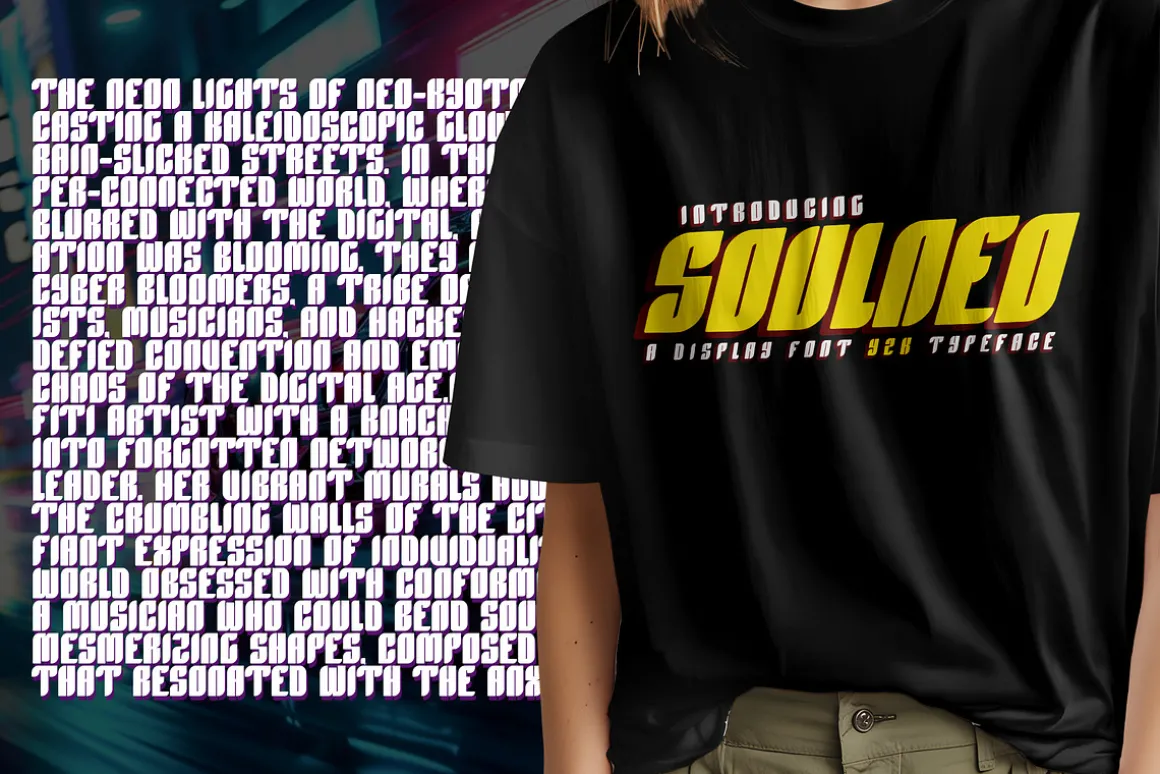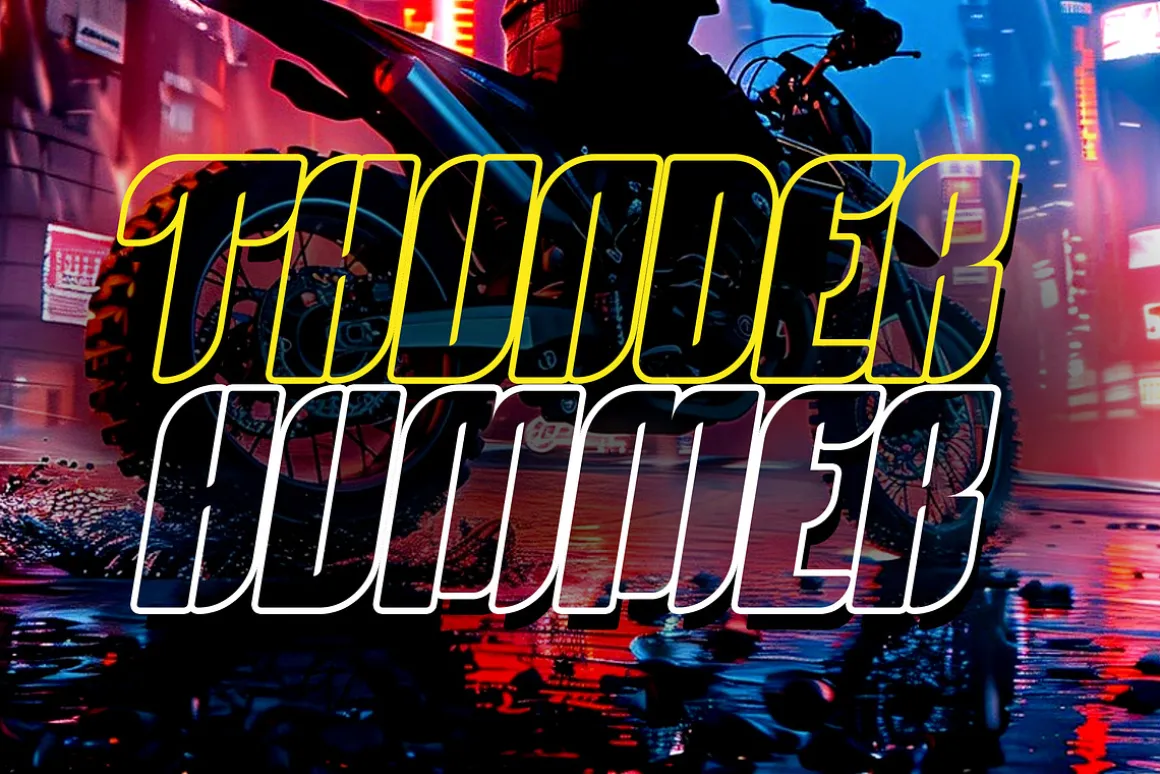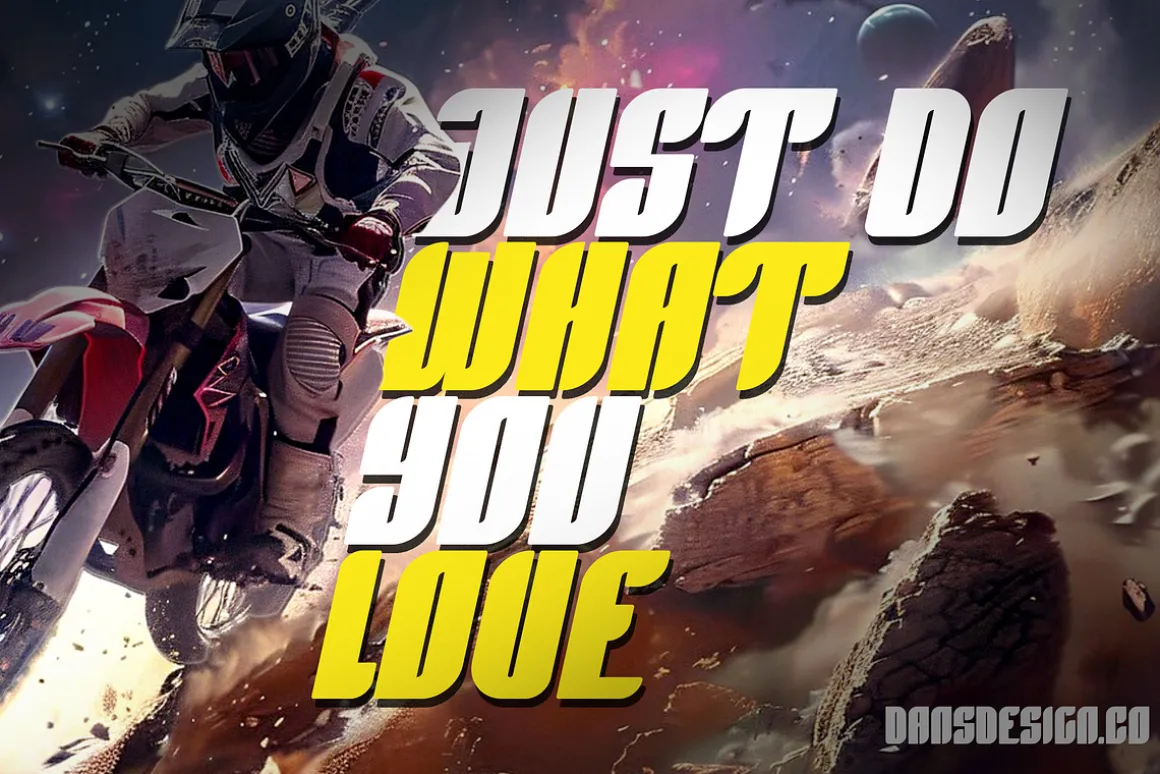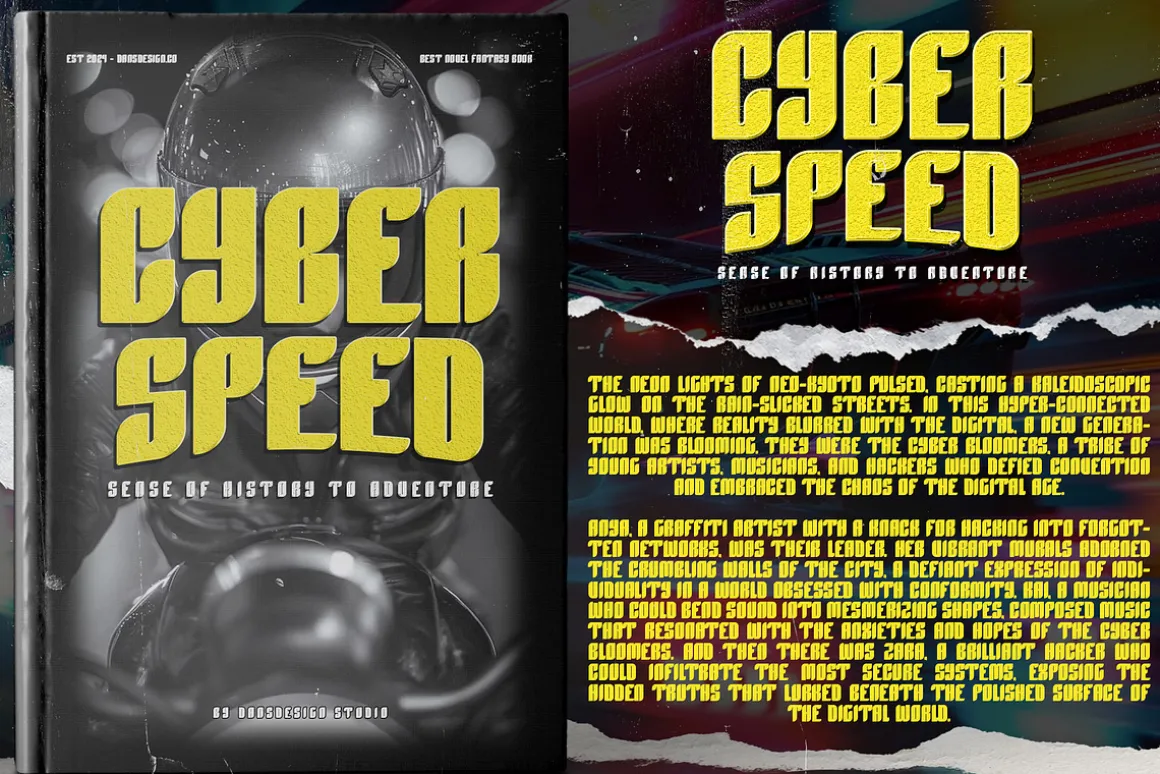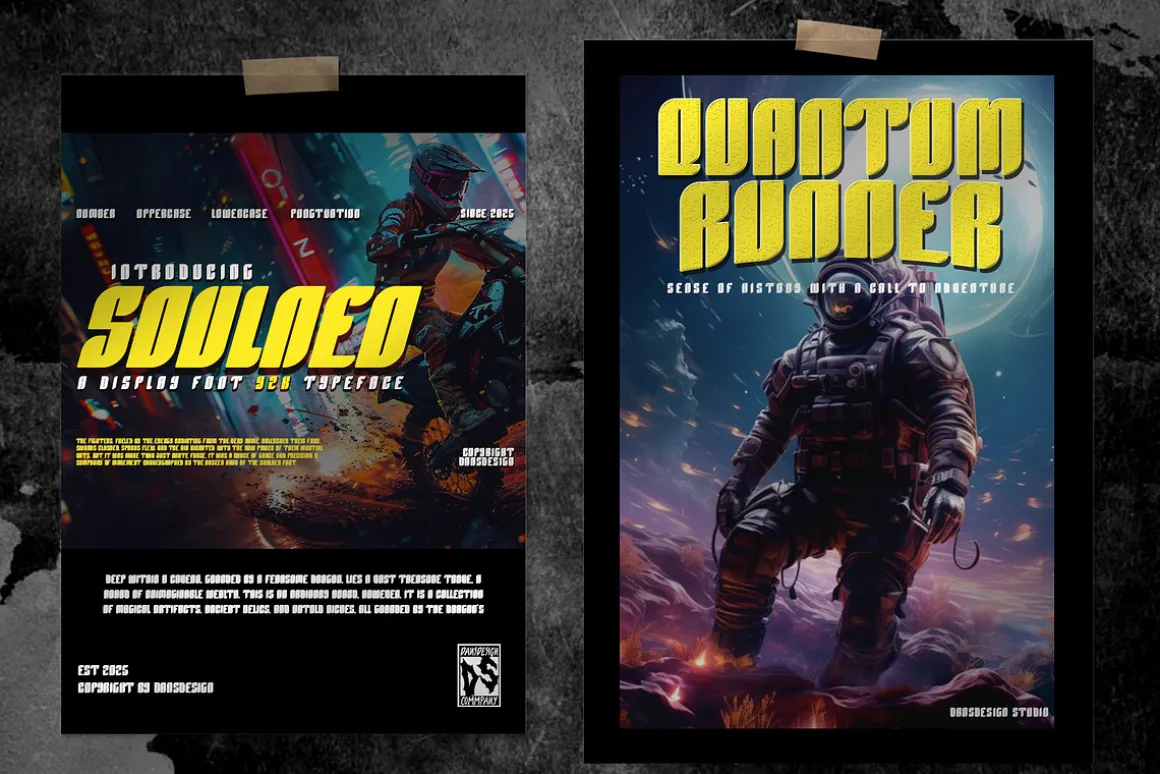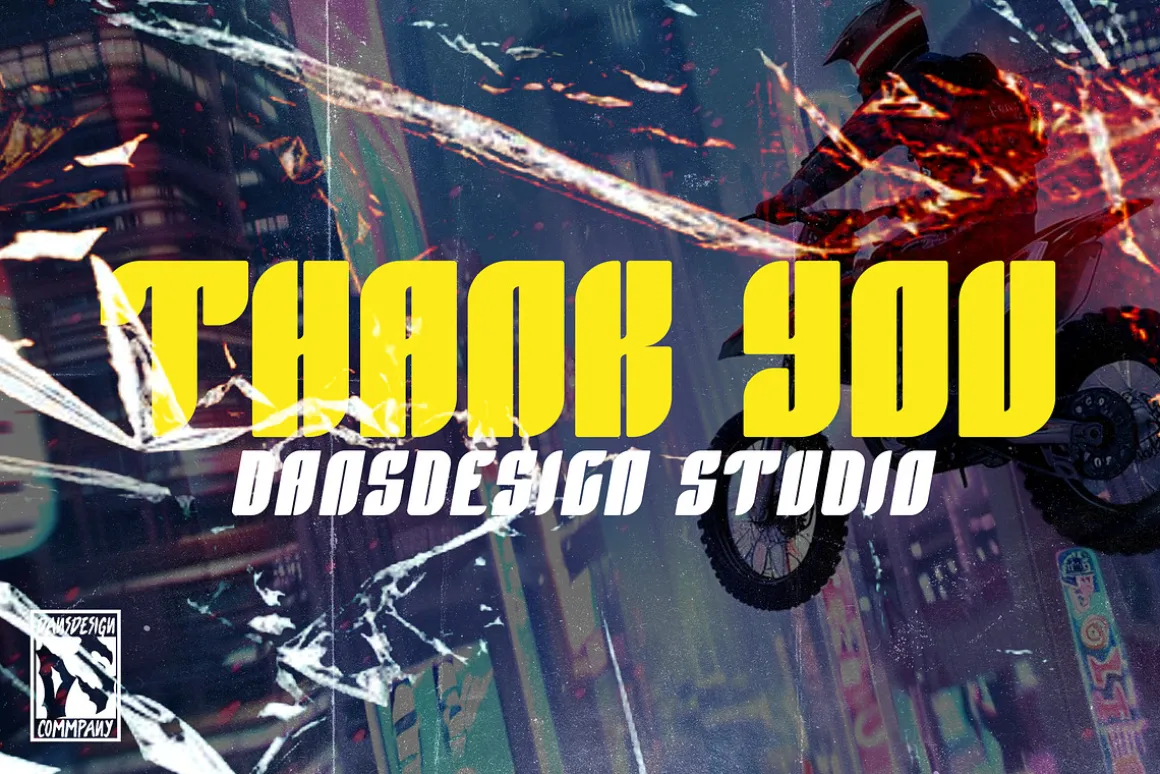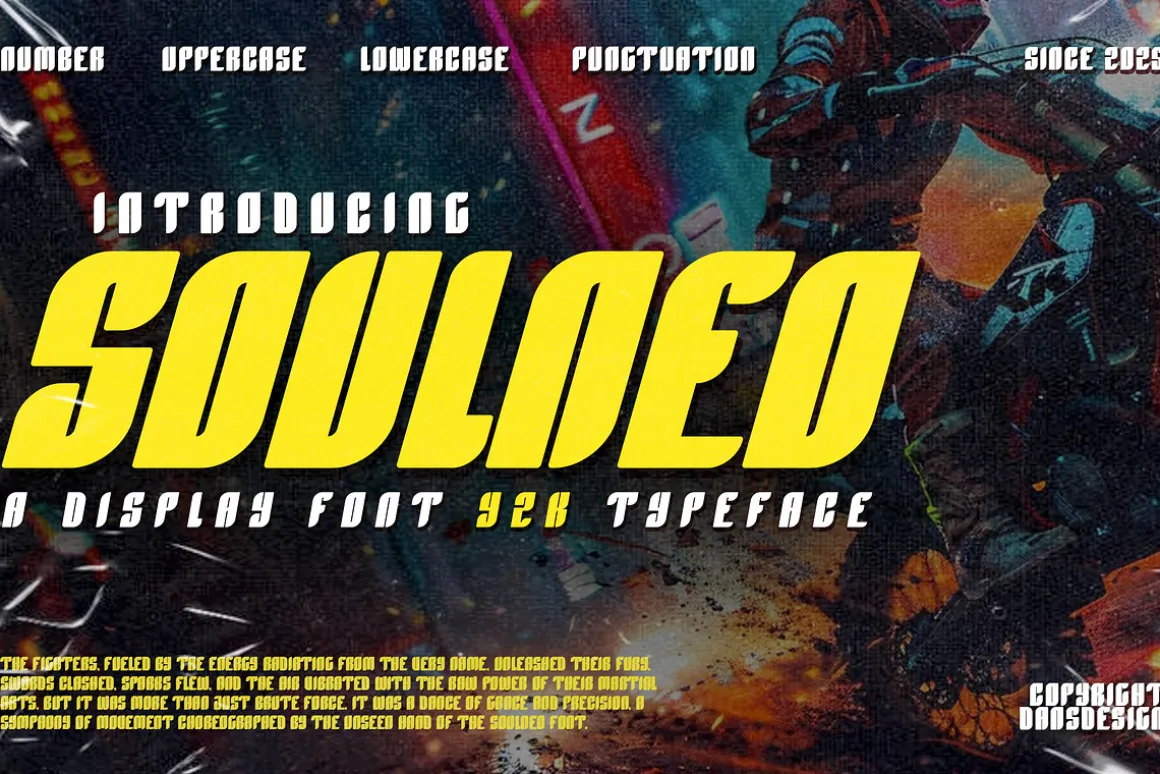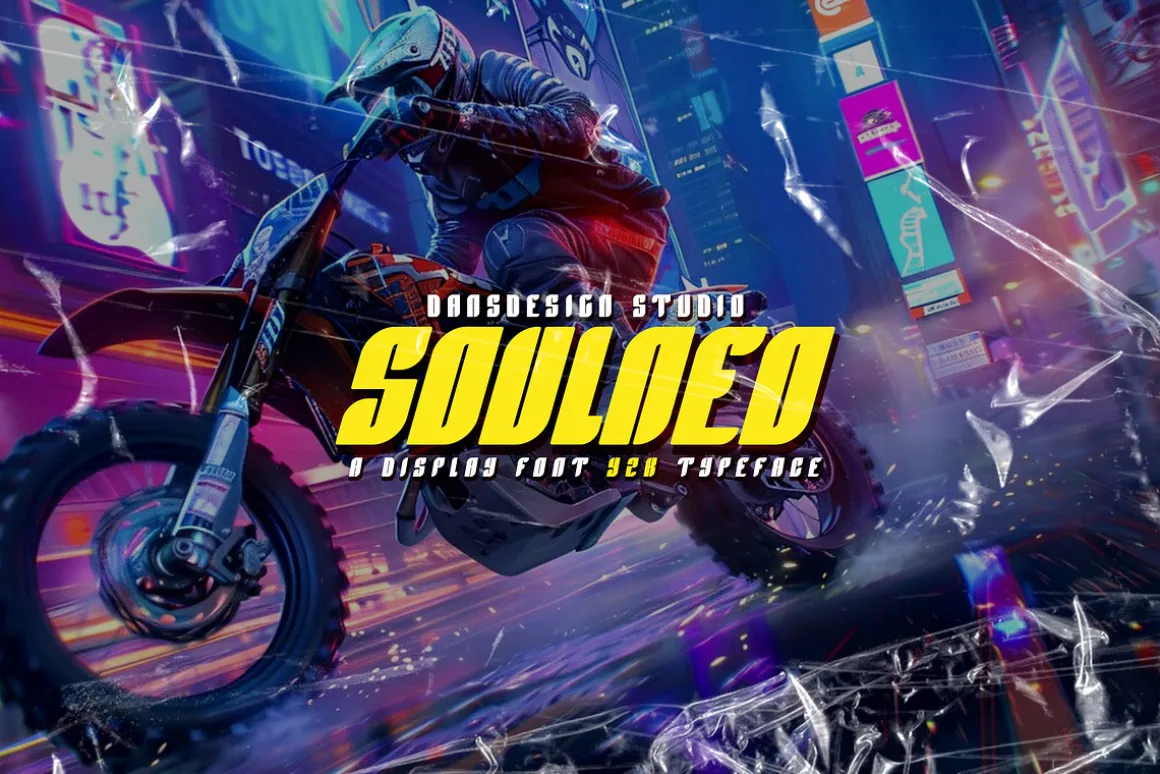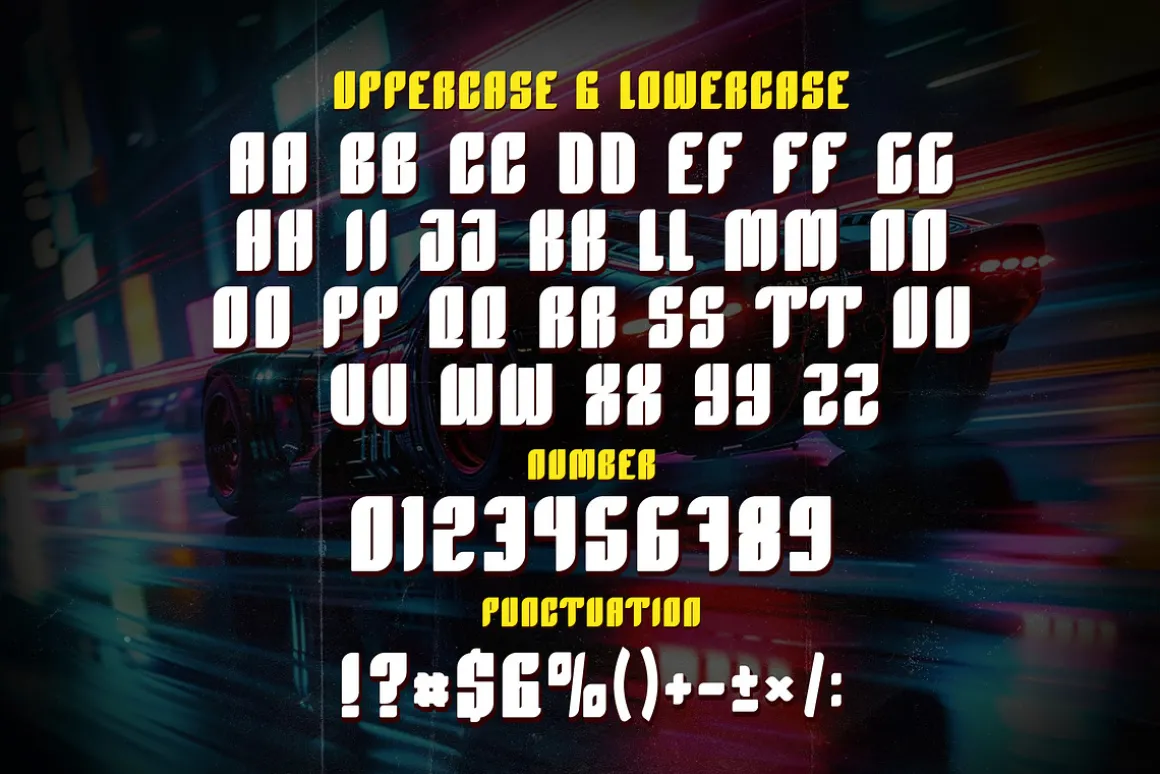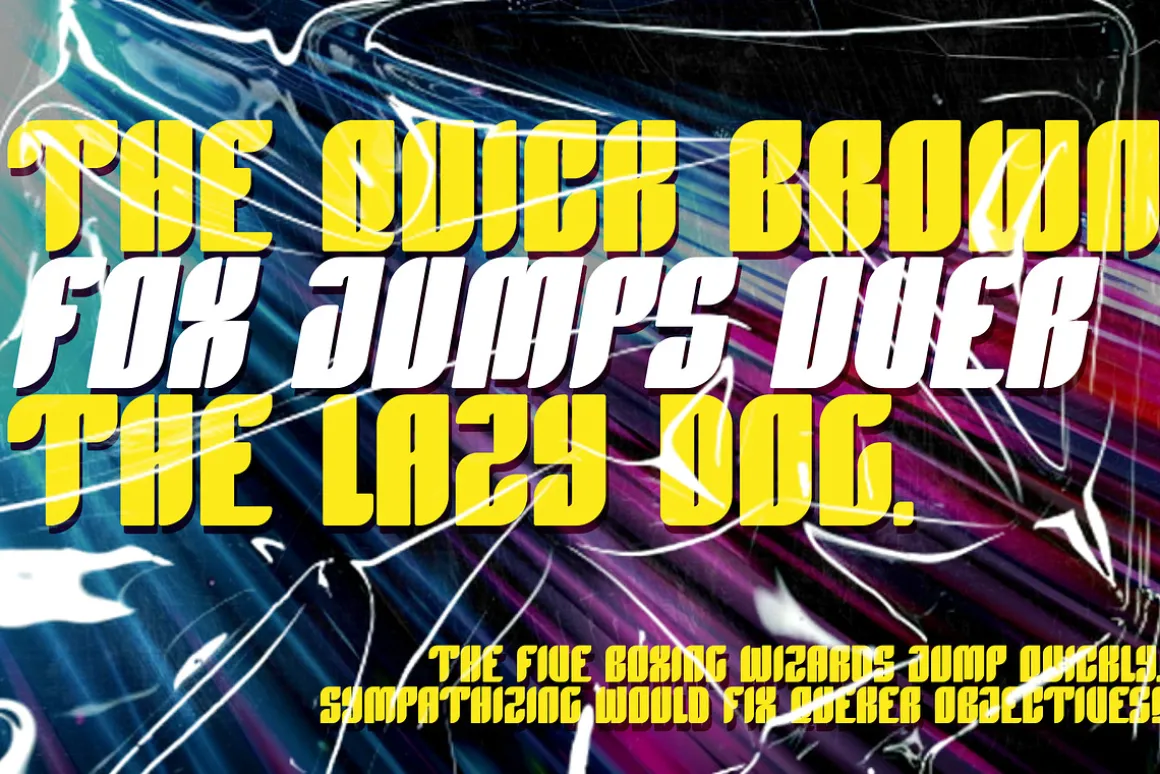
Soulneo – Y2K Display Font for Futuristic & Techno Designs
Soulneo is a bold, fast-paced display font forged for the digital pulse of tomorrow. Inspired by Y2K aesthetics, cyberpunk culture, and high-speed visuals, this font is your ultimate tool for creating loud, edgy, and unforgettable design statements.
🔥 Key Features:
Let your design race ahead of the times with velocity and style.Soulneo isn’t just a font – it’s a bold vision of the future.